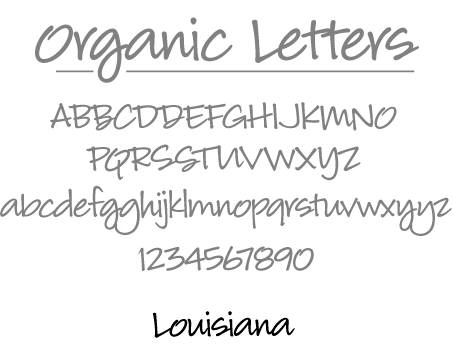
Hand writing fonts are fun and popular.
Melanie Snedeker, an Art Director I do graphic design
work for has the most beautiful hand writing around.
So we collaborated and made Louisiana. One of my favorites!